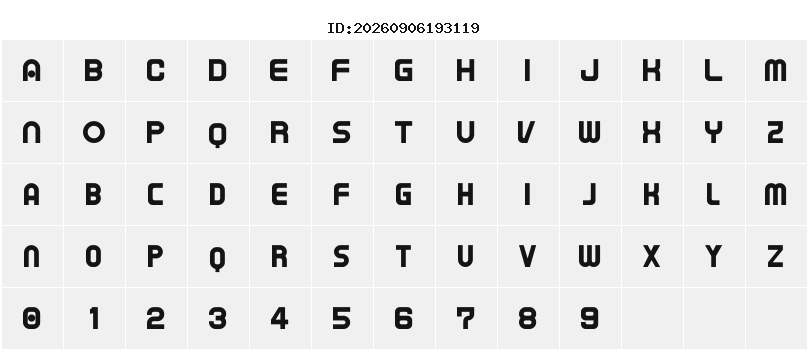
TAPEMAN.ttf is a modern, elegant sans-serif font designed for ultimate readability and visual harmony. Perfect for branding, headlines, web design, and print materials.